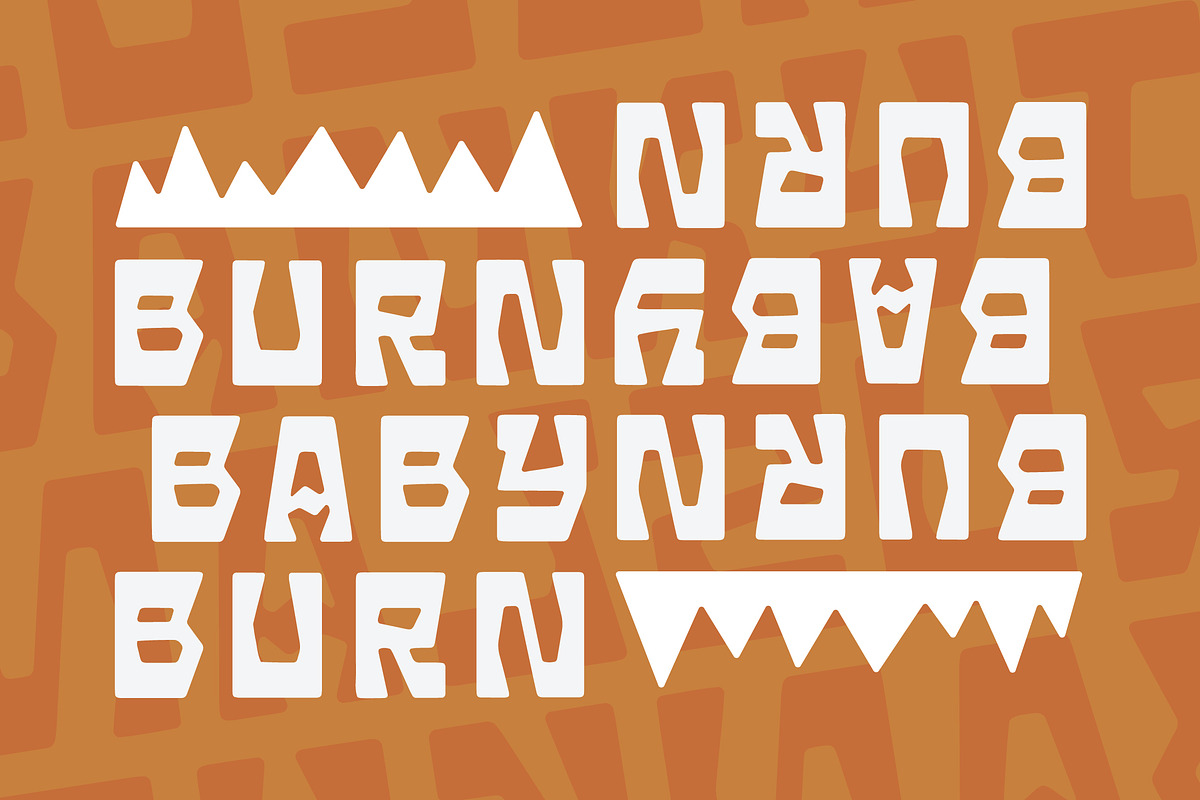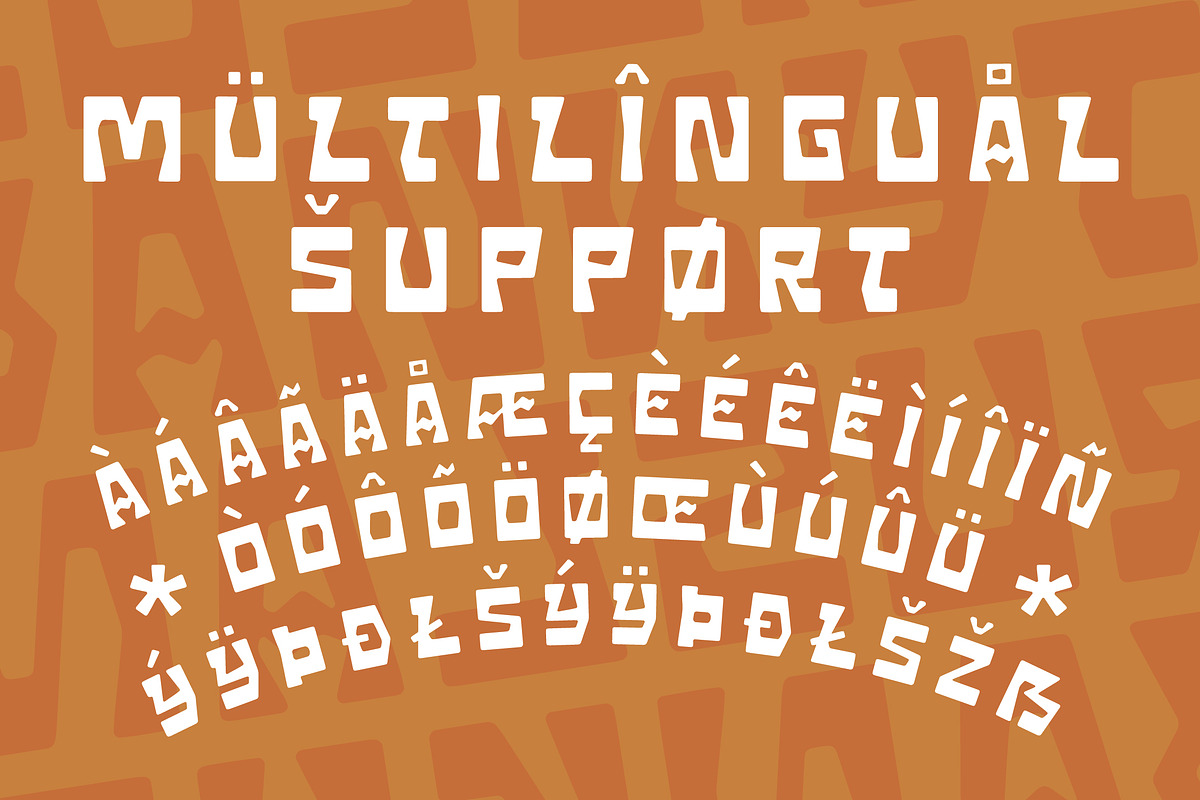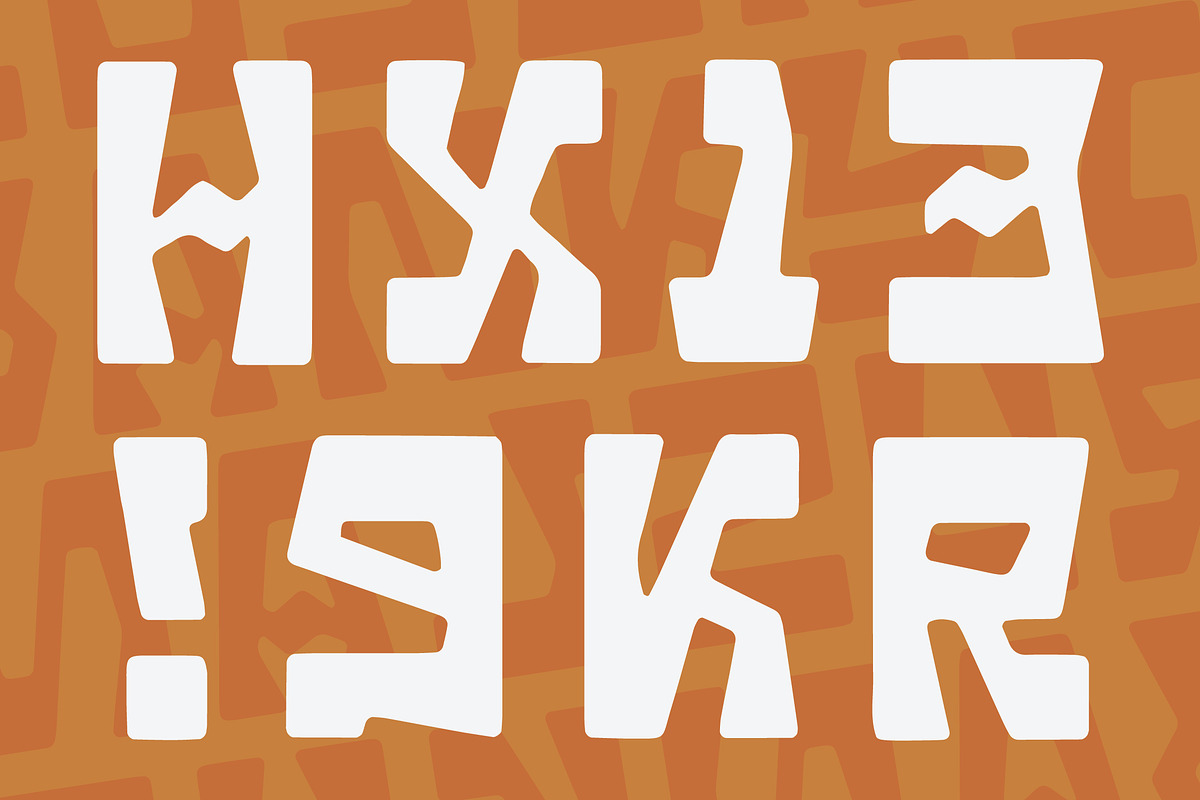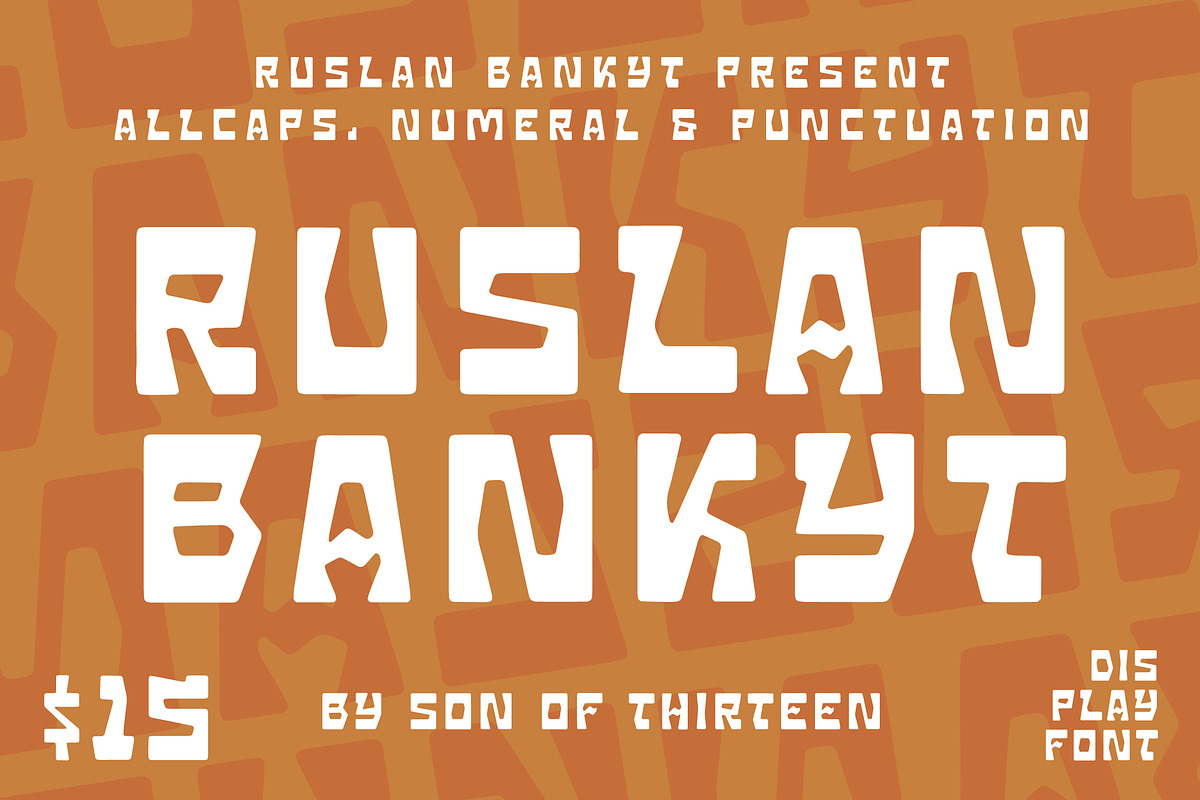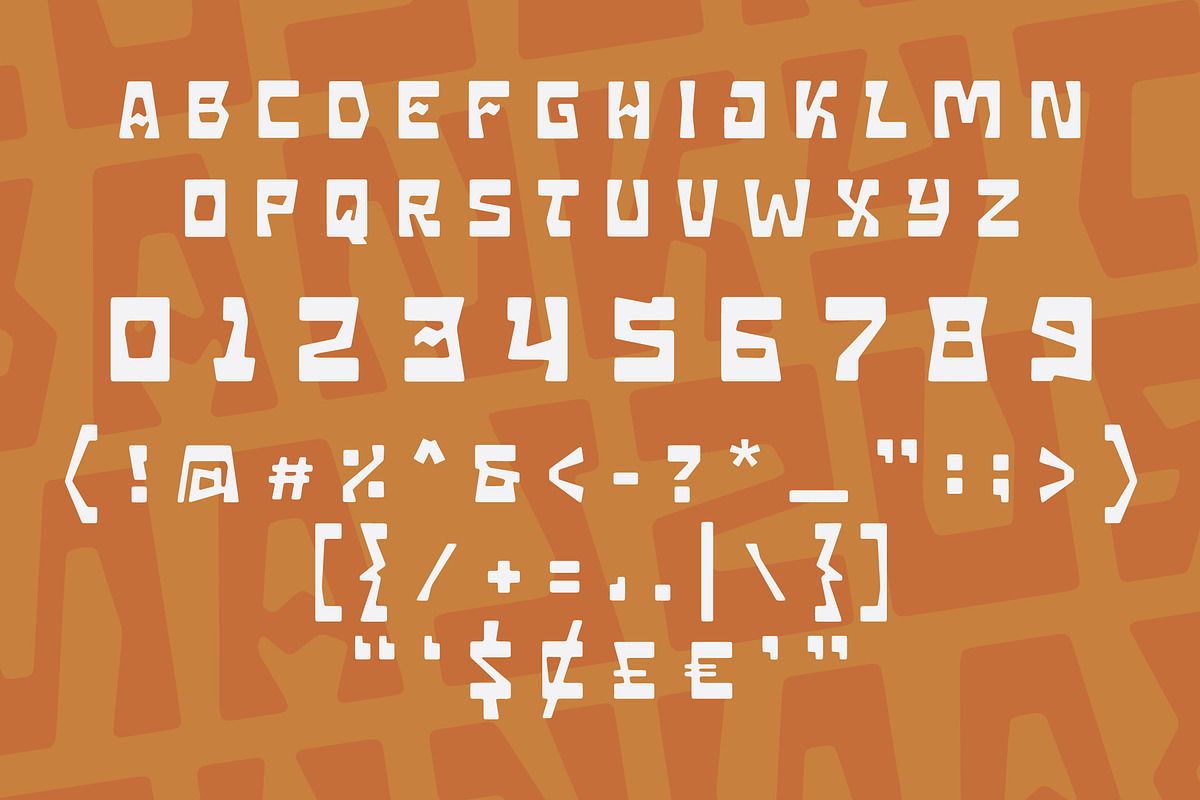
RUSLAN BANKYT
RUSLAN BANKYT is a distinctive display typeface crafted with a bold yet approachable character. Designed to stand out, its strong lines and confident style make it perfect for headlines, logos, posters, and editorial layouts. While it commands attention with its firm structure, it still carries a friendly tone balancing power and personality.